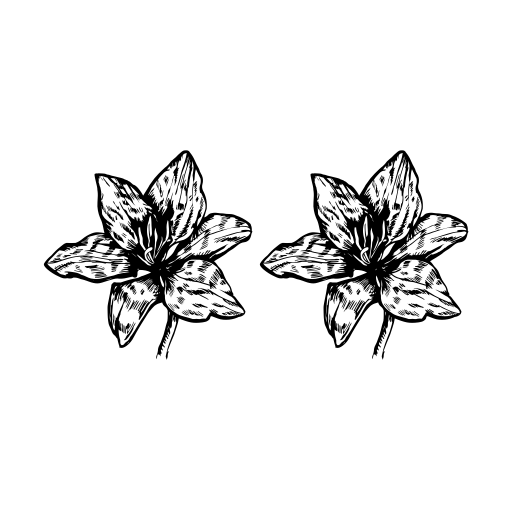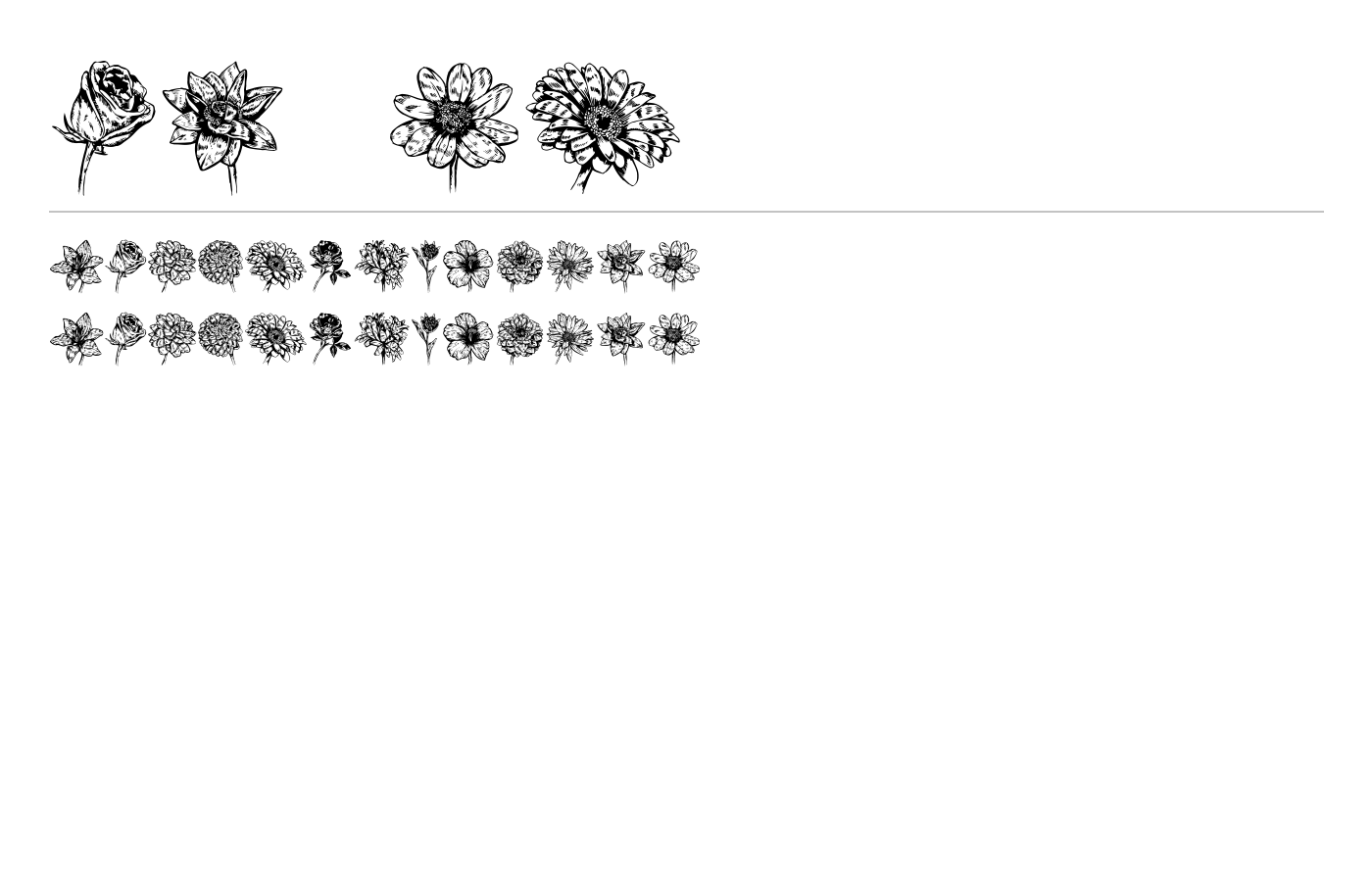
Blumen Font is a decorative, botanical-themed typeface composed entirely of detailed floral illustrations rather than traditional letterforms. Its intricate and naturalistic flower designs create a charming and artistic feel, making it perfect for creative projects that want to convey elegance, nature, or romance. This font works wonderfully for unique branding, invitations, packaging, and any design seeking a fresh, floral aesthetic.
Blumen Font
About Blumen Font